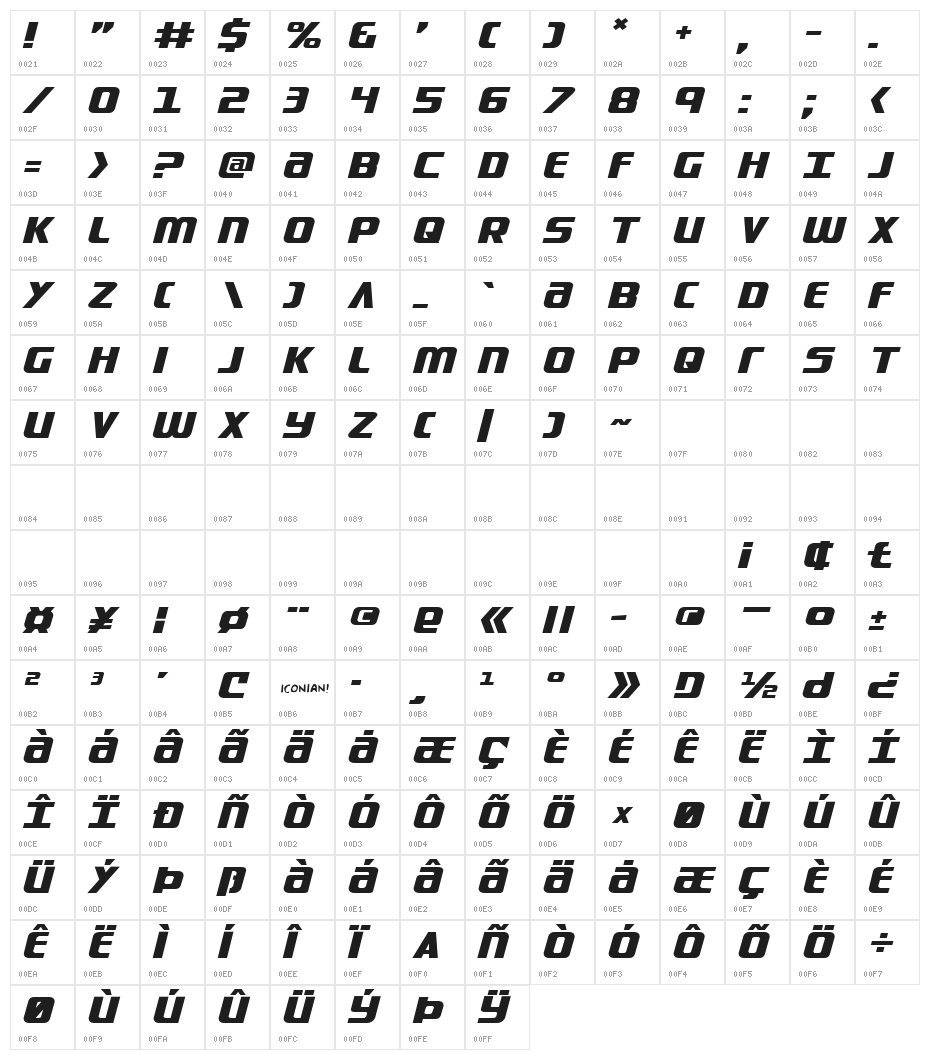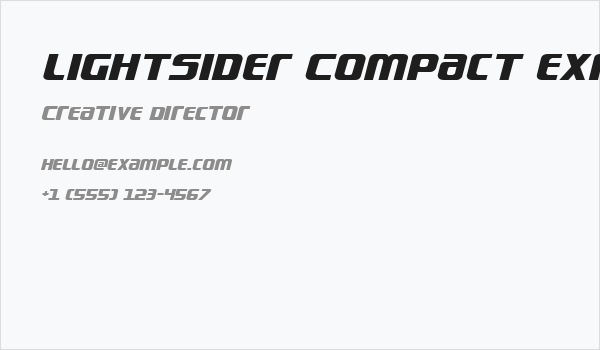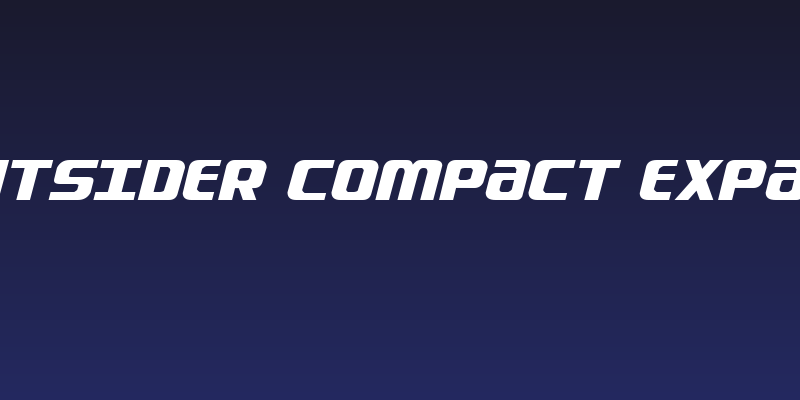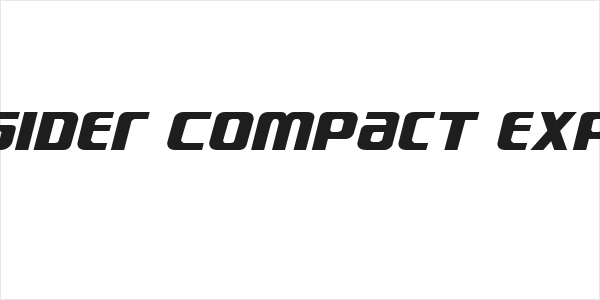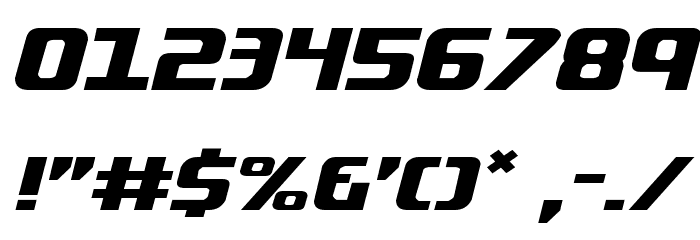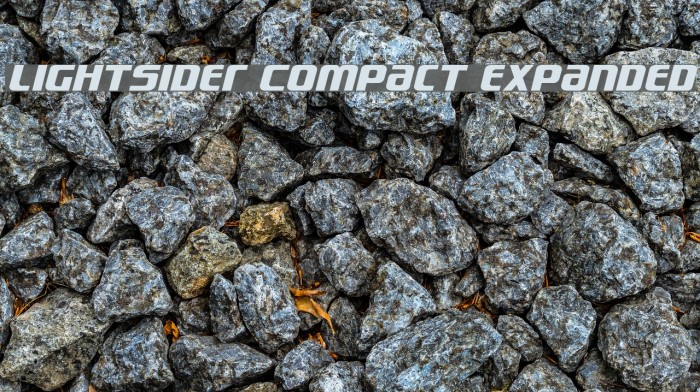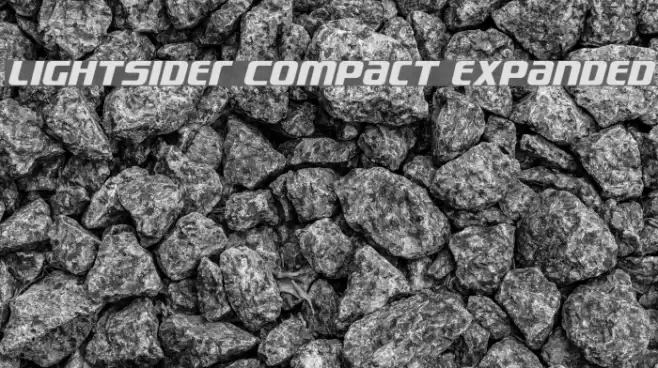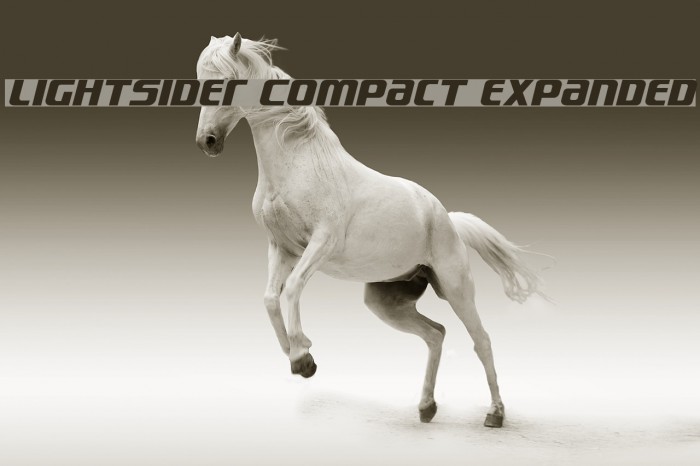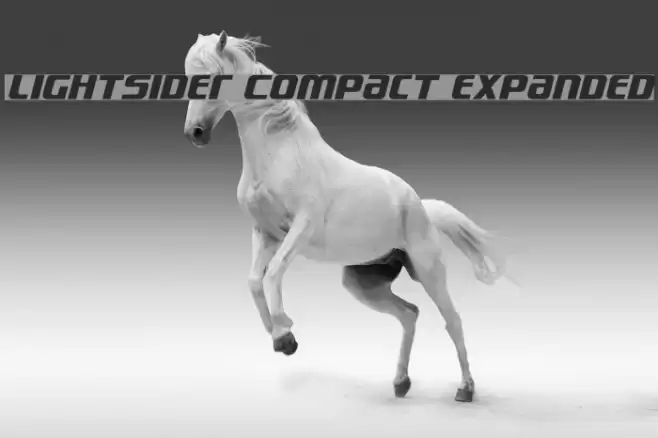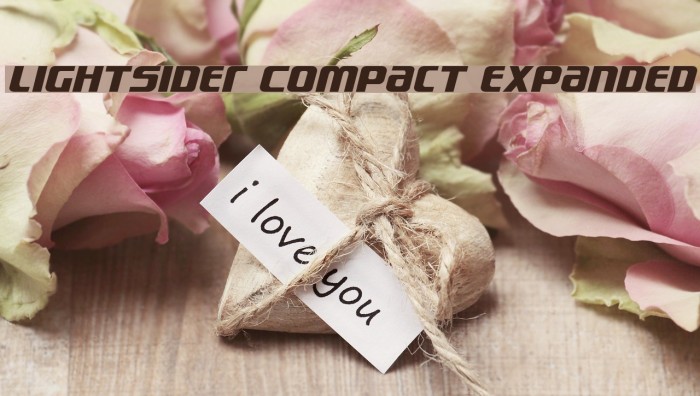
Lightsider Compact Expanded Font
✎ Futuristic
Lightsider Compact Expanded Description
This font presents a bold and dynamic style with a futuristic flair. The characters are slightly slanted, giving a sense of motion and energy. The strokes are thick and consistent, providing a strong visual impact. The design features sharp angles and smooth curves, creating a modern and sleek appearance. The uppercase and lowercase letters maintain a uniform width, contributing to a cohesive look. The numerals and special characters are designed to match the overall aesthetic, ensuring versatility in various design contexts.
| Proposed Projects | Ideal for sci-fi themed projects, technology branding, video game titles, and modern advertising. |